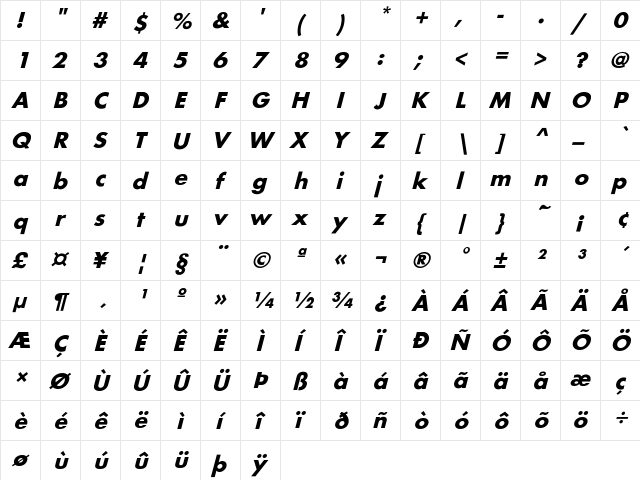
FuturaObl-Bold Regular Font Preview
FuturaObl-Bold Regular
FuturaObl-Bold Regular Font Details
Design Context for FuturaObl-Bold Typeface
FuturaObl-Bold has a distinctly futuristic character, with geometric precision and clean angles that feel at home in technology, gaming, and sci-fi contexts. The heavy weight commands attention and anchors typographic hierarchies.
Pro Tip: Use FuturaObl-Bold in combination with a neutral sans for body text. Let it define the brand voice in headlines while keeping reading comfortable elsewhere.